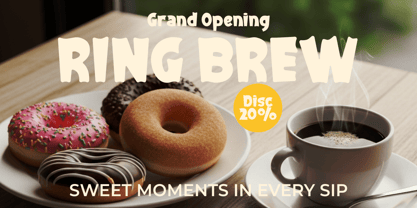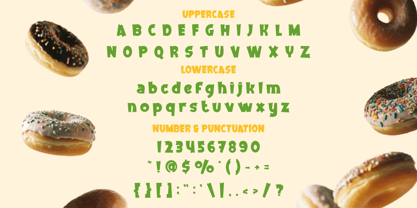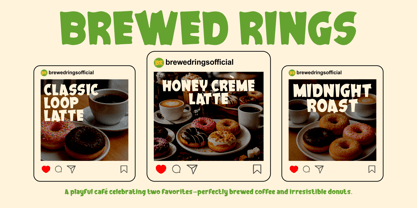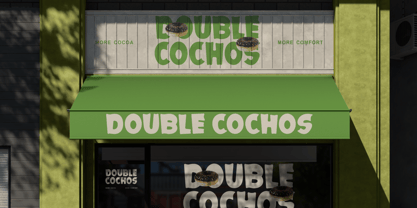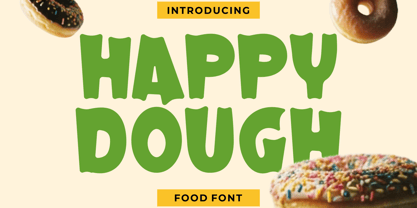
Happy Dough
by Shanaf
The Happy Dough Font Family was designed by Yesie Erma Yunita and published by Shanaf. Happy Dough contains 1 styles. More about this family
Happy Dough Food Font delivers thick chunky letters with soft curves and playful weight. The characters look bold, rounded, and slightly irregular for a hand shaped feel. Stroke width stays heavy, creating strong visibility from distance and small screens. Corners feel smooth while inner cuts add charm and movement. The proportions are compact yet tall enough for clear reading. Uppercase letters create loud headlines, while lowercase keeps a friendly tone. This display style blends retro snack shop spirit with modern branding energy. It suits logos, product names, menu boards, posters, packaging, stickers, and promo titles. The font feels cheerful, warm, inviting, and full of personality. It helps food brands create instant recognition and memorable first impressions. Use this font for donut shops, bakeries, coffee stores, dessert bars, snack kiosks, and food trucks. It works well for storefront signs, social media promos, and campaign graphics. Bold shapes make pricing boards and menu headlines easy to notice. Rounded forms fit sweet products, fresh bakery goods, and family friendly brands. It also works for book covers, magazine titles, greeting cards, crafting labels, and event posters. Pair it with clean sans serif text for balanced layouts. Happy Dough Food Font gives brands a fun voice with strong shelf appeal. Choose it when your business needs playful impact and clear visual identity.
Designers: Yesie Erma Yunita
Foundry: Shanaf